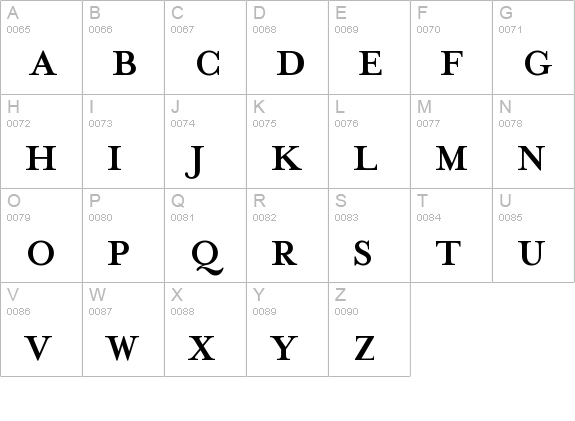
MrsEavesBold Bold Font Details
MrsEavesBold Bold is a strong, high-contrast variant in the MrsEavesBold typeface family \xE2\x80\x94 well suited to headlines, attention-grabbing titles, and strong calls-to-action.
MrsEavesBold Bold is a classic and elegant typeface that exudes sophistication and style. With its strong and bold letterforms, this font is perfect for making a statement in your designs. Whether you're creating a poster, branding materials, or a website, MrsEavesBold Bold will add a touch of class and professionalism. The best part? MrsEavesBold Bold is available for free download at FontsMarket.com. You can easily access this versatile font and elevate your projects with its timeless appeal. Don't miss out on the opportunity to enhance your designs with the beauty and charm of MrsEavesBold Bold. Download it today and let your creativity shine!